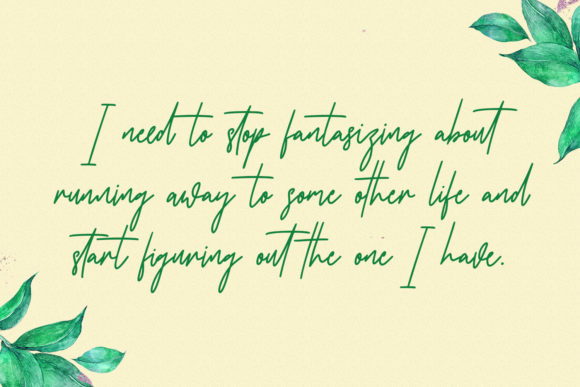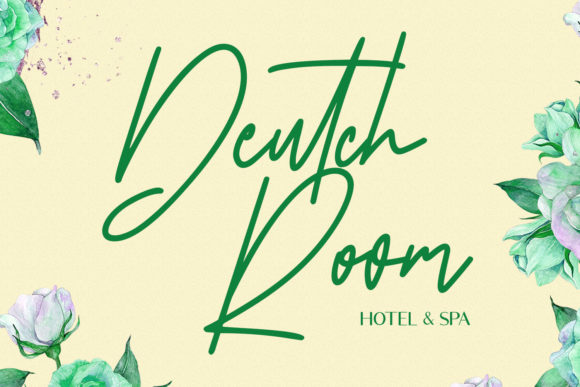
Antrophys Script Font
db-ku.com - Script & Handwritten -- Antrophys is a casual signature script font with a regular mono-line stroke, fun characters, and unique ligatures.